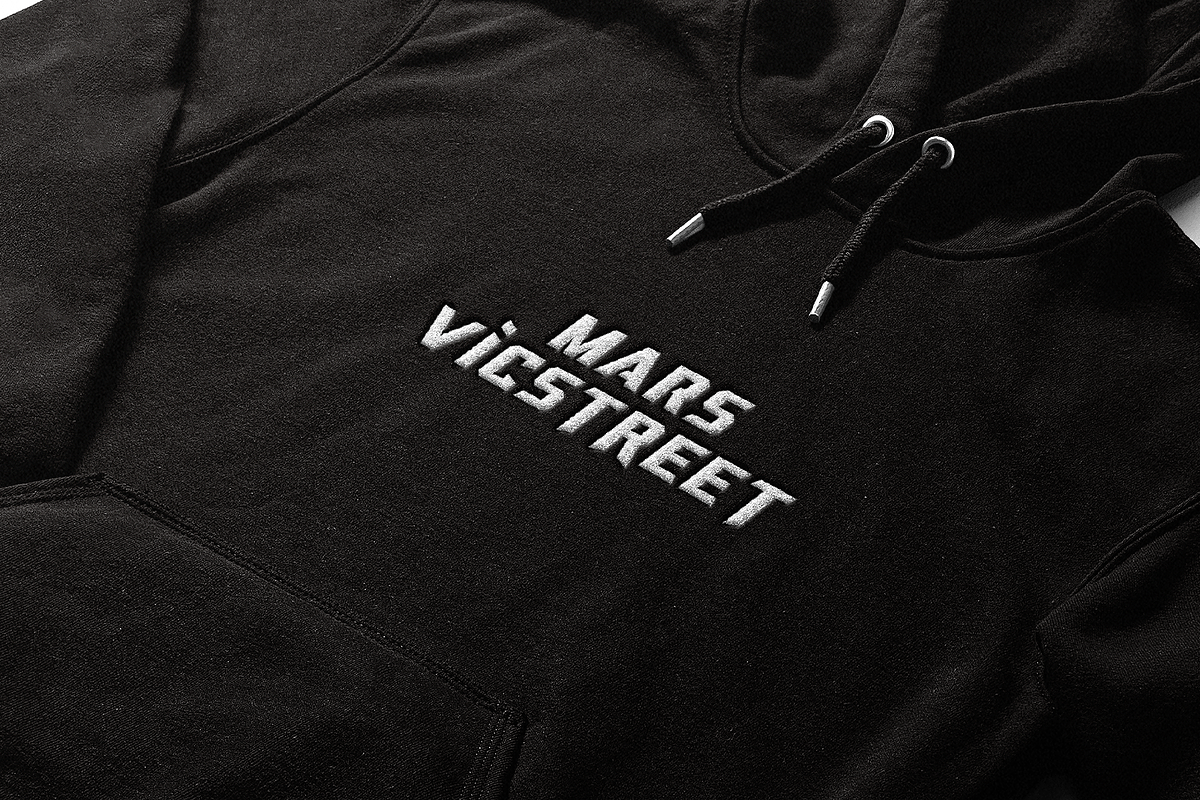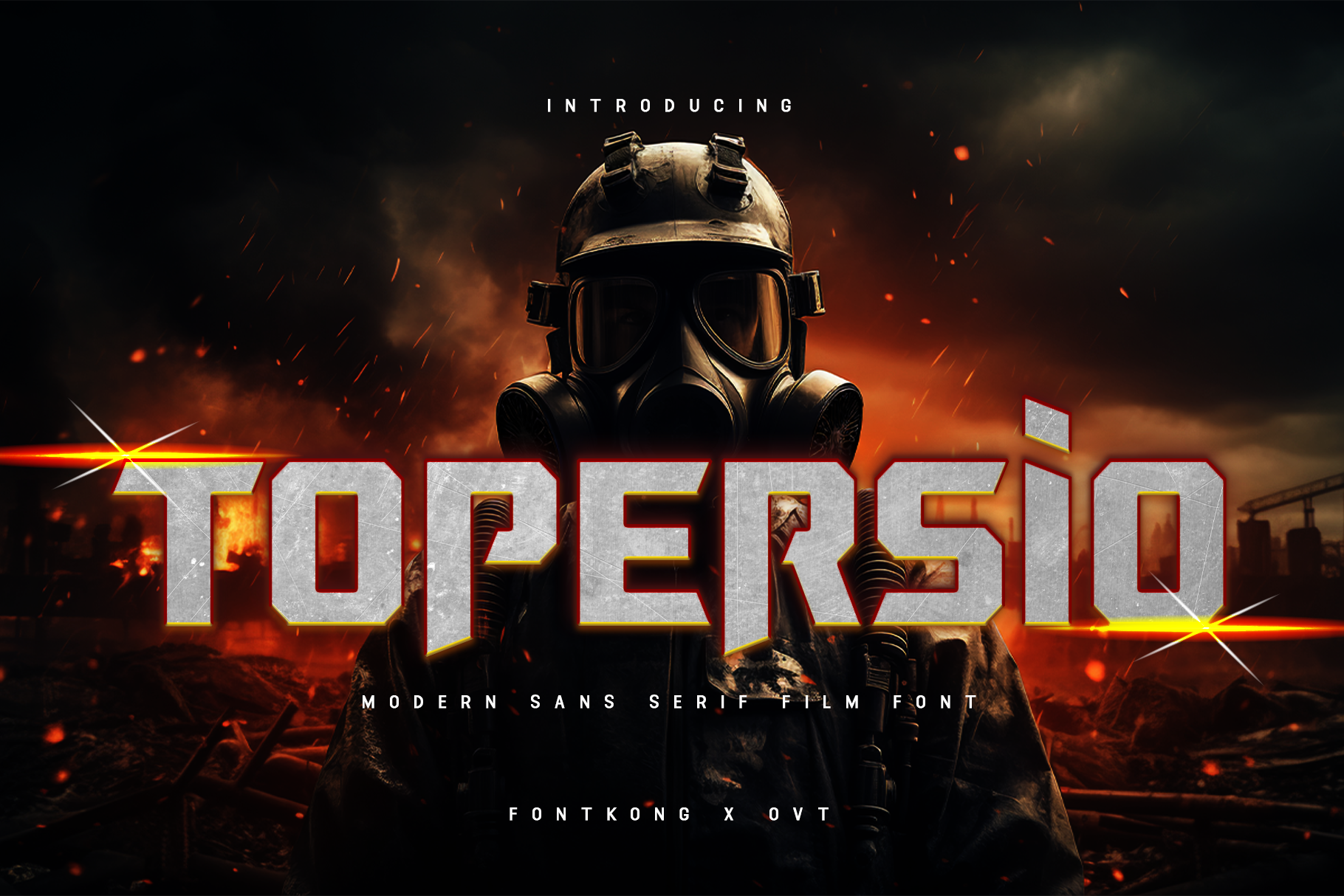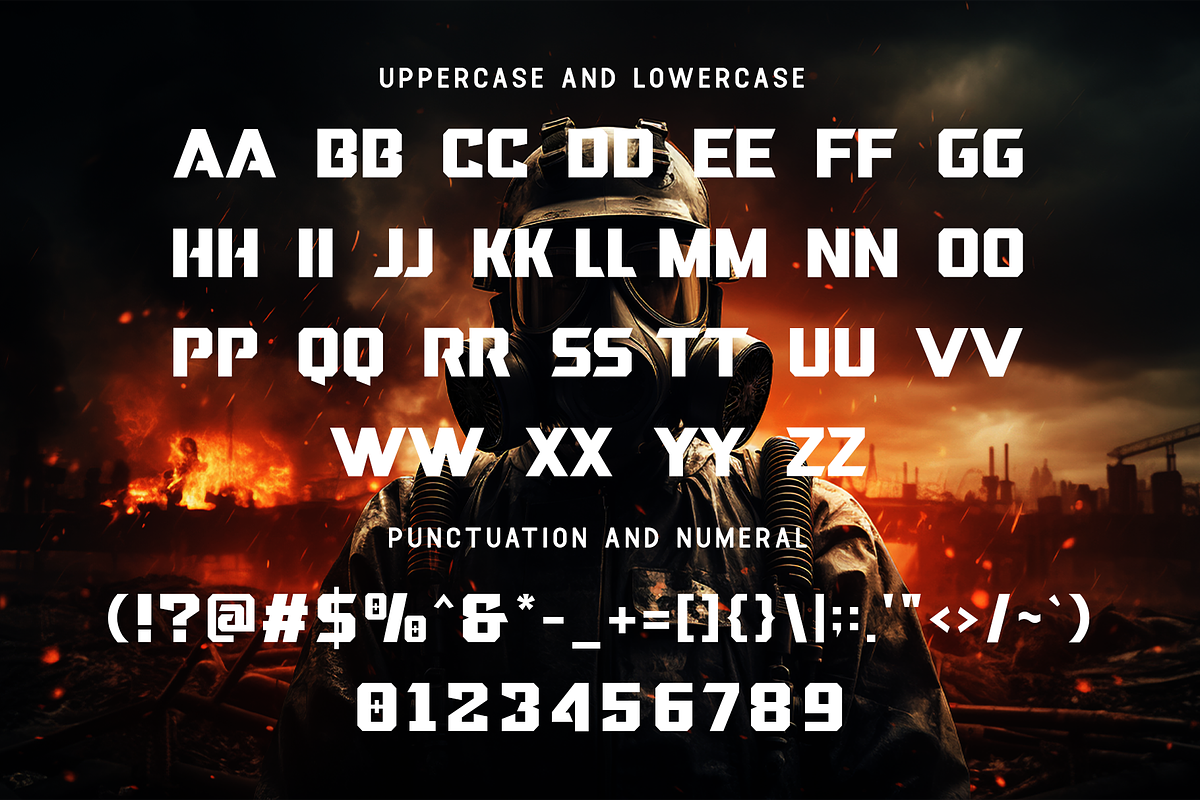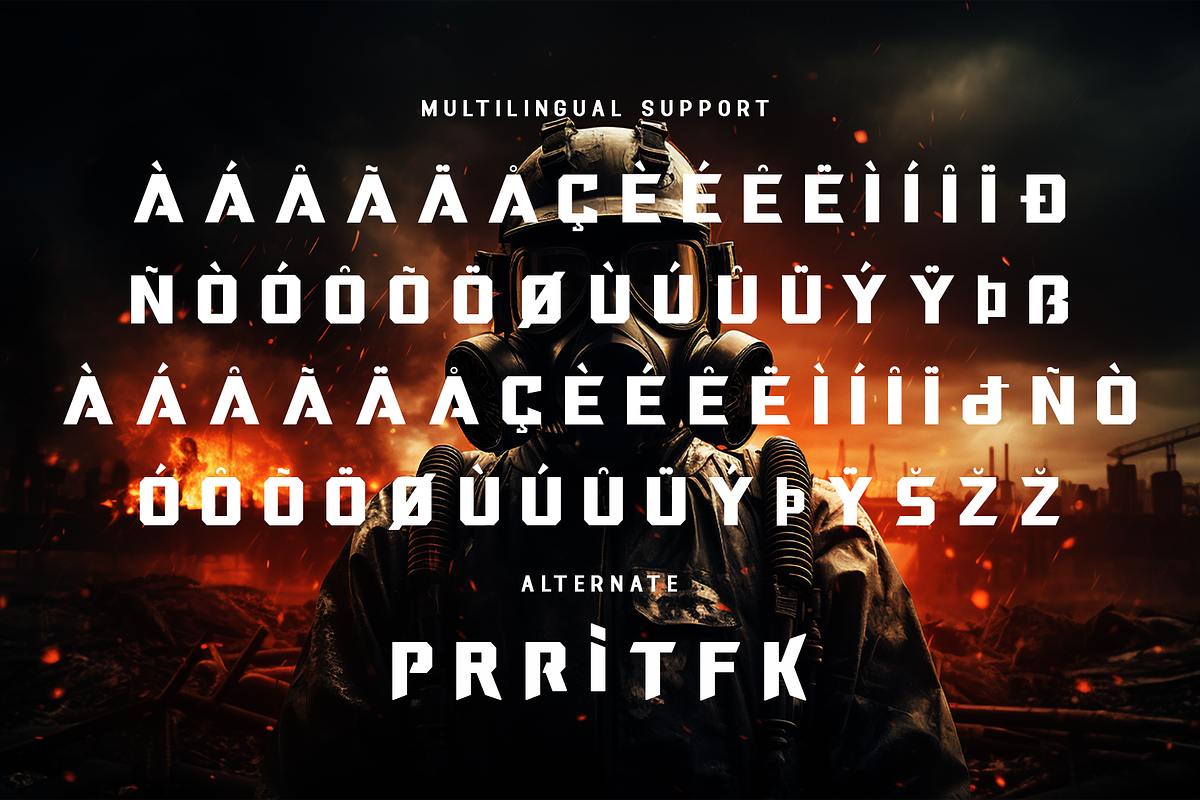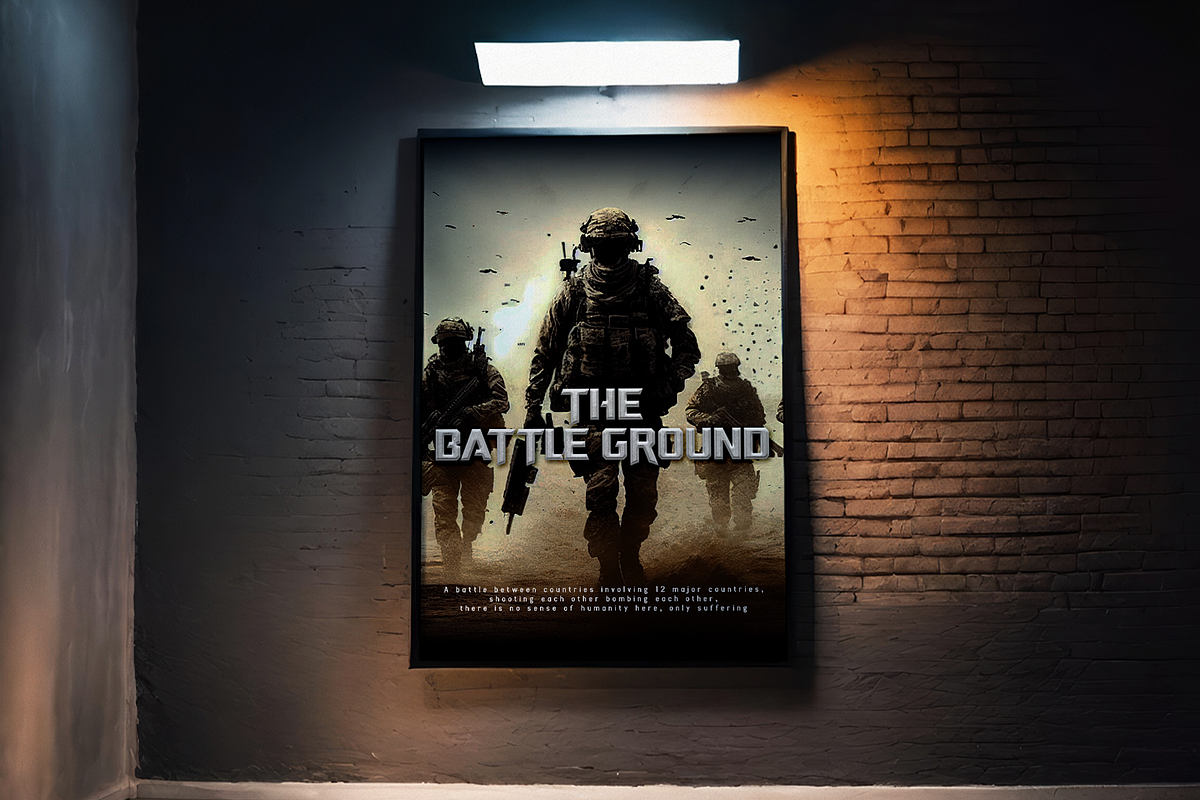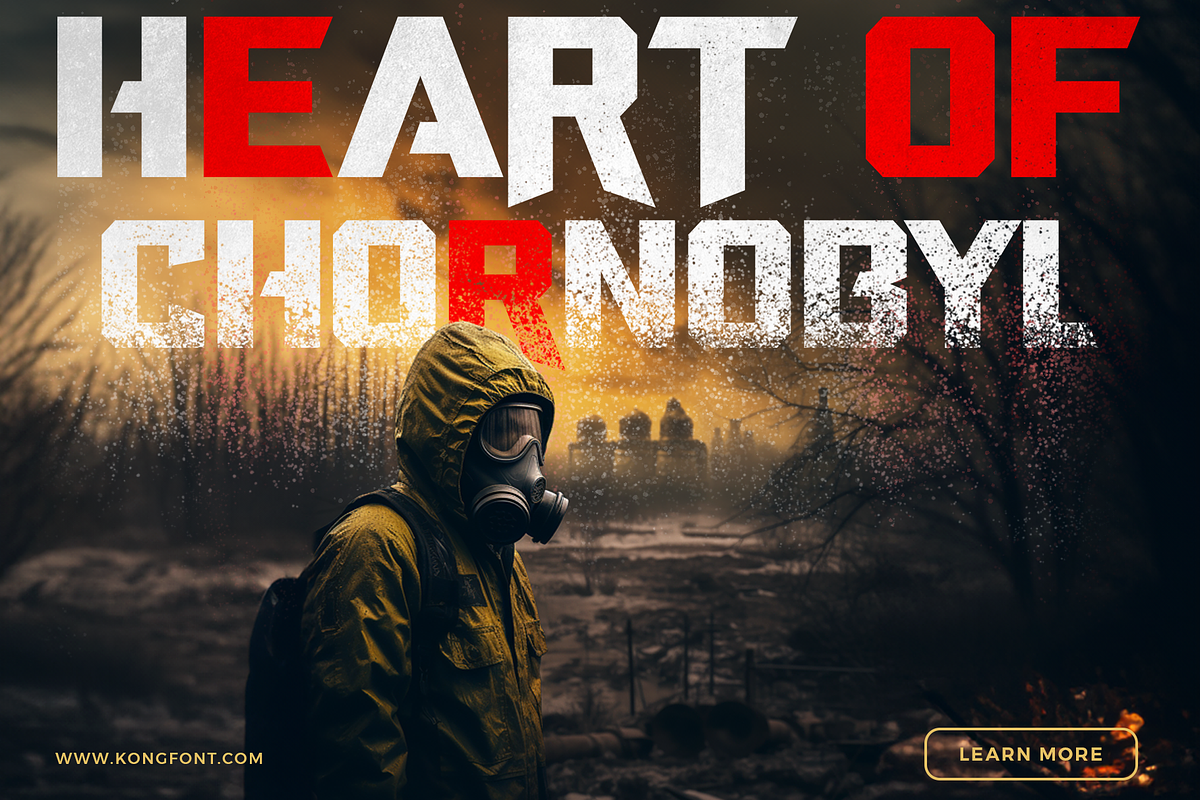
Topersio - Modern Sans Serif Font
Lights, camera, action! Introducing "Topersio," a modern sans serif font crafted specifically for film-related designs. With its sleek lines and cinematic flair, Topersio brings the drama and excitement of the silver screen to your typography.
Designed with precision and style, Topersio captures the essence of film titles with its bold and impactful presence. Whether you're creating movie posters, film credits, or promotional materials, this font commands attention and sets the stage for cinematic greatness.
Featuring uppercase letters, numbers, and punctuation marks, Topersio offers versatility and flexibility for all your film-related projects. Its modern aesthetic ensures that your typography stands out on the big screen and beyond.
Lights, camera, typography! Elevate your designs with the captivating allure of Topersio and let your creativity shine like a Hollywood star.